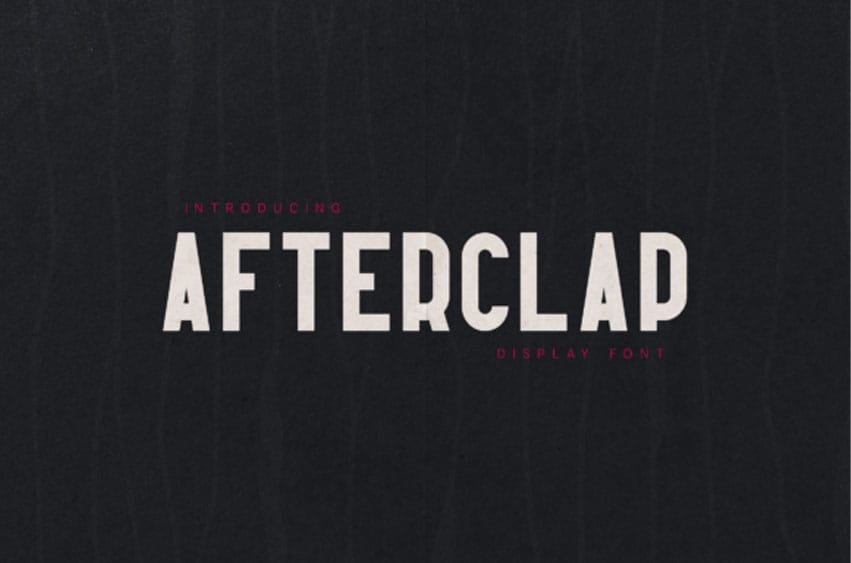
Afterclap Font is a bold condensed display font designed to deliver strong visual impact and modern typographic presence. Afterclap works exceptionally well for branding design, poster typography, editorial headlines, packaging design, modern advertising layouts, magazine titles, social media graphics, and strong visual identity systems.
The powerful vertical rhythm of the characters creates typography that feels structured, modern, and highly legible even at large display sizes.